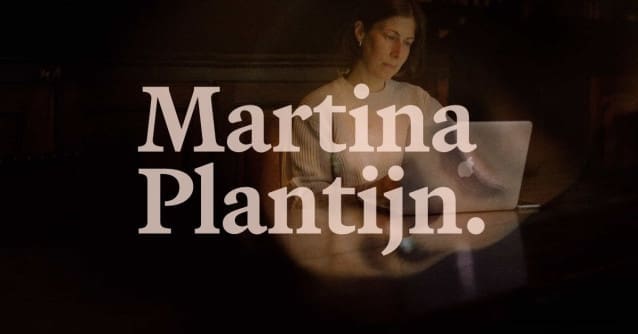
Martina Plantijn Font Family
Martina Plantijn Font Family, is a better Plantin. Informed by the workhorse qualities of Frank Hinman Pierpont’s typeface and expanding upon his research of 16th century type at the Plantin-Moretus Museum in Antwerp, Martina Plantijn makes decisive digital updates across its roman and italic cuts.
This new typeface is named after the indomitable 17th century businesswoman, author and head of the largest printing business in the world. Martina was Christophe Plantin’s daughter and married his apprentice Jan Moretus. At five years old she was proofing texts in her father’s printshop—by 25 she was running it. Martina Plantin inspired a lineage of strong, emancipated women who managed the Plantin-Moretus printing house for the next 300 years. She helped lay the foundations of the Plantin-Moretus archives, embodying the true definition of curator.
Continuing from where Pierpont left off, Martina Plantijn improves and rebalances. Like Plantin it’s extremely robust at small sizes, hard-working and modest. Larger sizes reveal practical and opinionated arcs, cuts and terminals. Martina Plantijn is a formidable next-generation Plantin that reconciles historical analogue qualities with a 21st century digital reality.